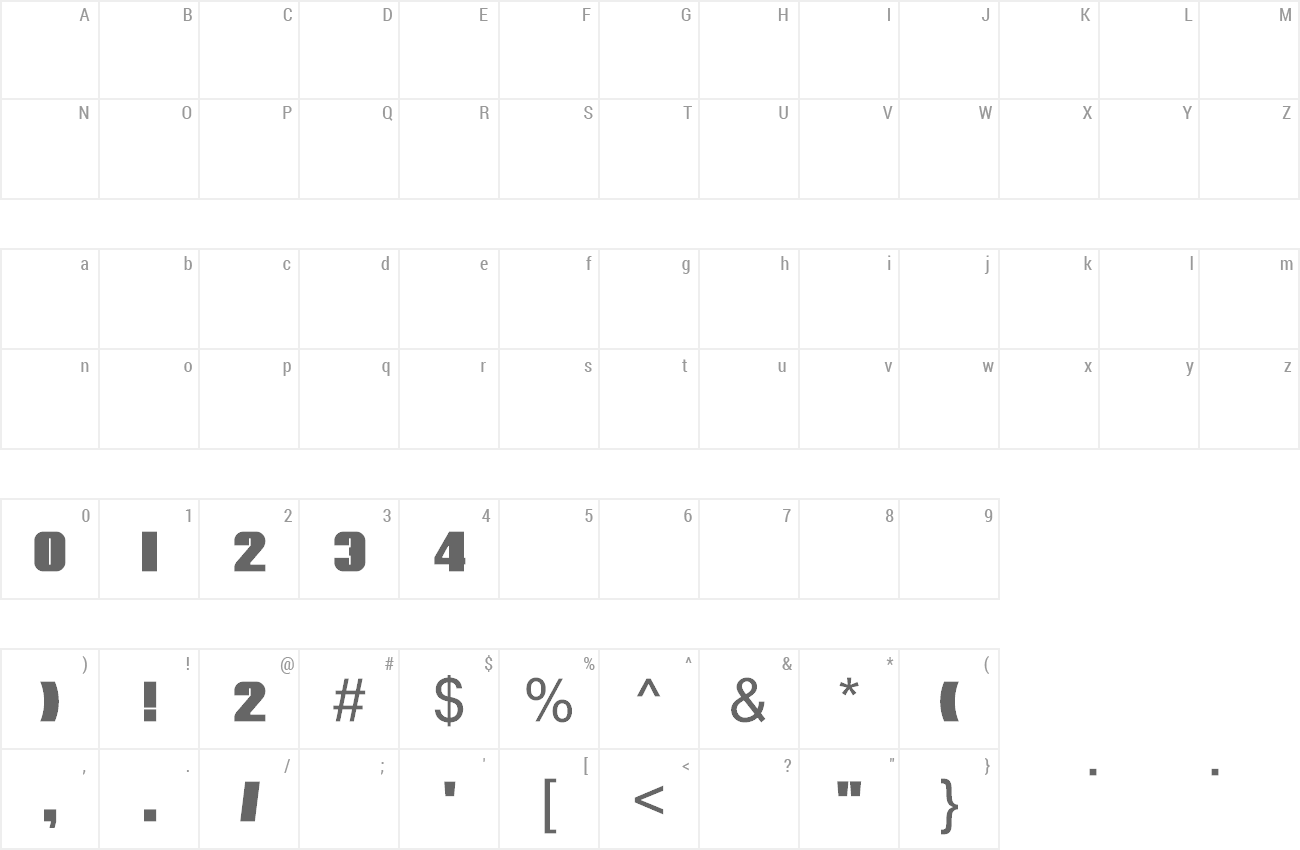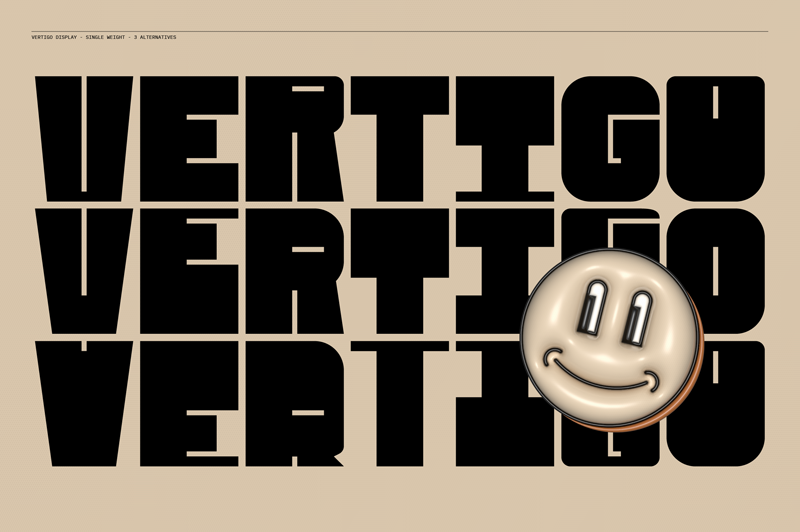
| Vertigo is an all caps sans-serif font, with three alternatives of midline heights for each glyph. It is a font with a retro soul, with which to have fun creating new combinations all the time. Vertigo is available as a free download and free commercial use. What do I ask in return? I simply wish to be tagged and share with me your projects that will use the font. Enjoy it! |